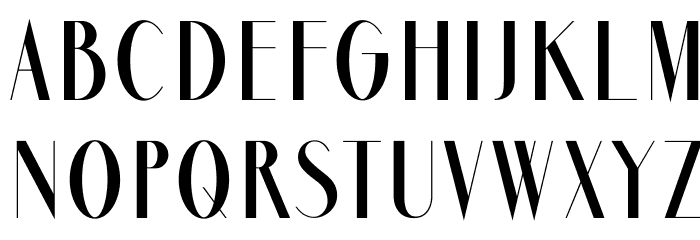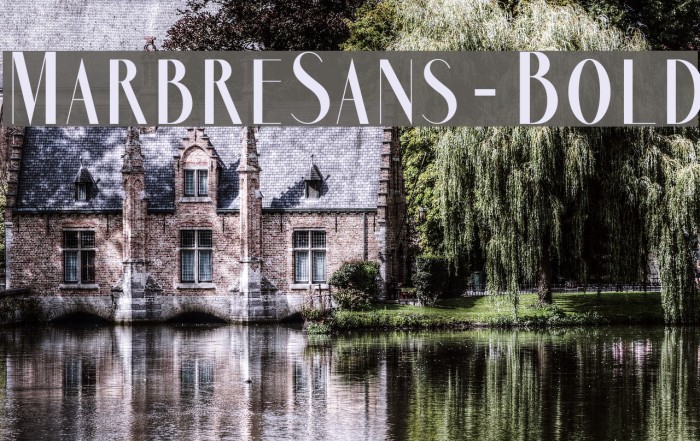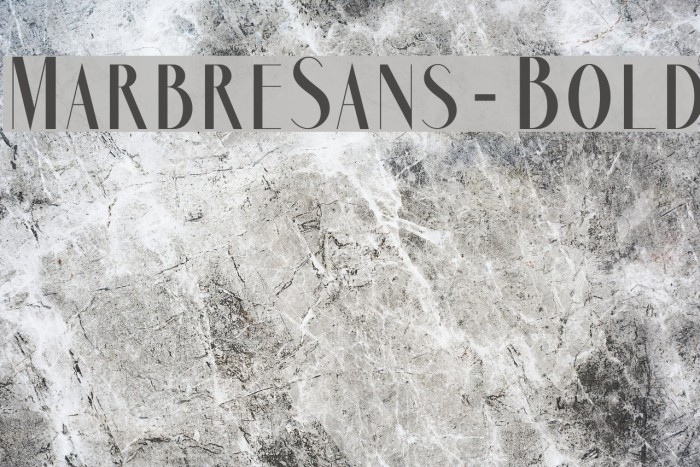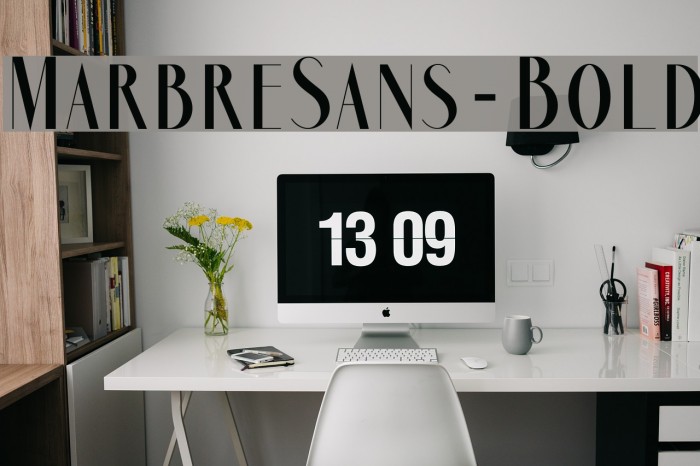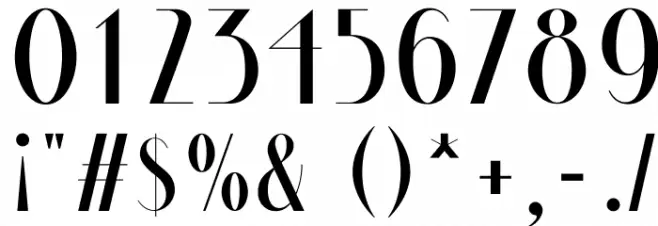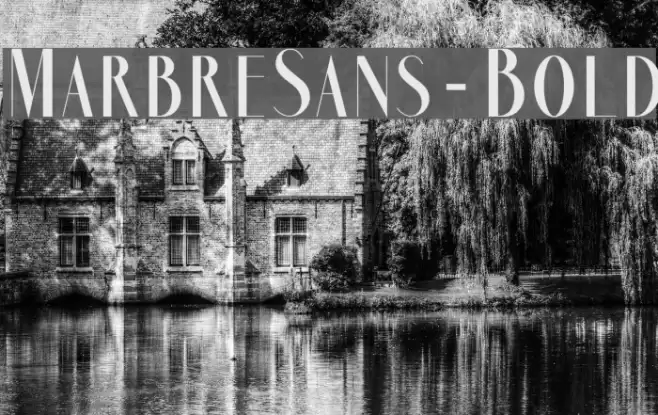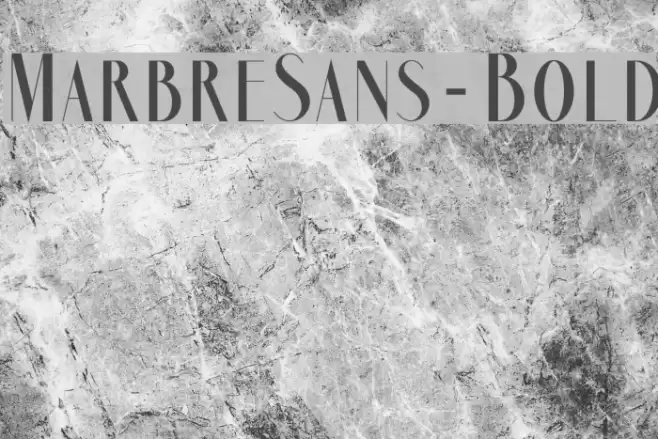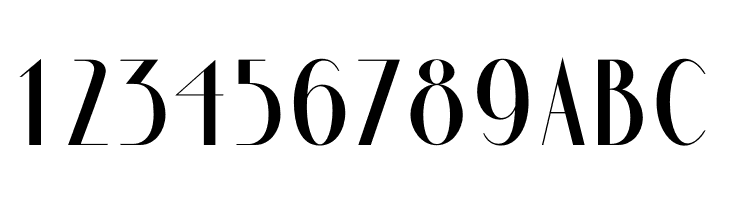
MarbreSans-Bold Font
This font features a striking and elegant design with a high contrast between thick and thin strokes, giving it a sophisticated and modern appearance. The characters are tall and narrow, with sharp, clean lines that create a sense of refinement and style. The uppercase letters are particularly elongated, adding to the font's dramatic flair. The numerals and special characters maintain the same high contrast and sleek design, ensuring consistency throughout. This font is ideal for making a bold statement while maintaining a sense of elegance.
A high-contrast, elegant font with elongated, narrow characters.
- Proposed Projects: Ideal for luxury branding, fashion magazines, high-end product packaging, and elegant invitations.
- Overall Style: Modern, Elegant
- Use Case: Headlines, Logos, Branding